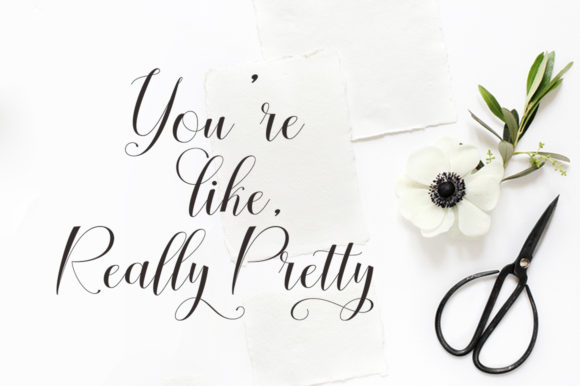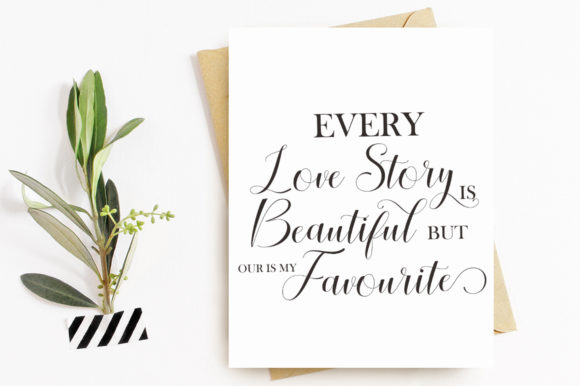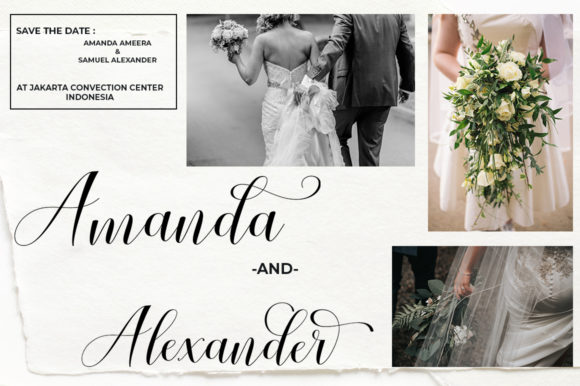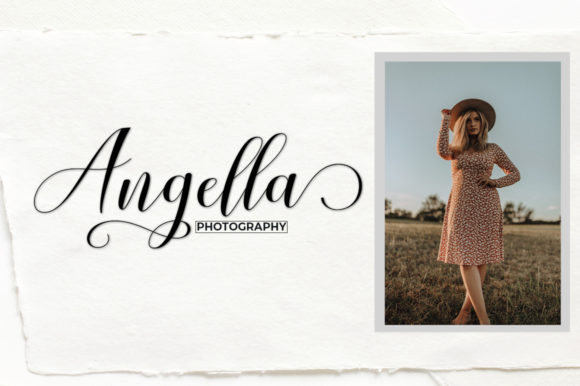
Introducing Dagestan Script Font: Elevate Your Designs with a Touch of Elegance
In the world of typography, a font can make or break a design. If you’re a designer or crafter looking for a modern script font that exudes cleanliness and sophistication, look no further than Dagestan Script Font. This beautiful font is perfect for adding a touch of elegance to your designs, making it ideal for a wide range of applications.
What is Dagestan Script Font?
Dagestan is a modern script font that boasts a clean and casual look, making it perfect for designers who want to add a touch of sophistication to their work. With its beautiful swashes, this font is sure to elevate your designs and make them stand out from the crowd. Whether you’re working on a logo, product packaging, or wedding invitation, Dagestan Script Font is the perfect choice.
Key Features of Dagestan Script Font
- Modern Script Font: Dagestan is a modern script font that is perfect for designers who want to add a touch of elegance to their work.
- Clean Look: This font boasts a clean and casual look, making it perfect for a wide range of design applications.
- Beautiful Swashes: The swashes in Dagestan Script Font add a touch of sophistication and elegance to your designs.
- Versatile: This font can be used for a wide range of purposes, including logos, product packaging, wedding invitations, branding, headlines, signage, labels, signatures, book covers, posters, quotes, and more.
Uses of Dagestan Script Font
Dagestan Script Font is a versatile font that can be used for a wide range of design applications. Here are some of the ways you can use this beautiful font:
- Logos: Use Dagestan Script Font to create a stunning logo for your business or brand.
- Product Packaging: Add a touch of elegance to your product packaging with this beautiful font.
- Wedding Invitations: Make your wedding invitations stand out with Dagestan Script Font.
- Branding: Use this font to create a consistent brand identity across all your marketing materials.
- Headlines: Add a touch of sophistication to your headlines with Dagestan Script Font.
- Signage: Use this font to create eye-catching signage for your business or event.
- Labels: Add a touch of elegance to your labels with Dagestan Script Font.
- Signatures: Use this font to create a beautiful signature for your emails or documents.
- Book Covers: Make your book cover stand out with Dagestan Script Font.
- Posters: Use this font to create stunning posters for your business or event.
- Quotes: Add a touch of elegance to your quotes with Dagestan Script Font.
Why Choose Dagestan Script Font?
There are many script fonts available, but Dagestan Script Font stands out from the crowd. Here are some reasons why you should choose this font:
- Unique Design: Dagestan Script Font has a unique design that will make your designs stand out from the crowd.
- Elegant: This font exudes elegance and sophistication, making it perfect for designers who want to add a touch of class to their work.
- Versatile: Dagestan Script Font can be used for a wide range of design applications, making it a great addition to your font library.
- Easy to Read: This font is easy to read, making it perfect for body text and headlines.
In conclusion, Dagestan Script Font is a beautiful modern script font that is perfect for designers who want to add a touch of elegance to their work. With its clean look, beautiful swashes, and versatility, this font is sure to elevate your designs and make them stand out from the crowd. Whether you’re working on a logo, product packaging, or wedding invitation, Dagestan Script Font is the perfect choice.